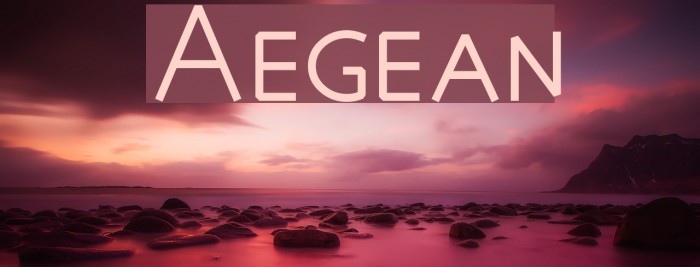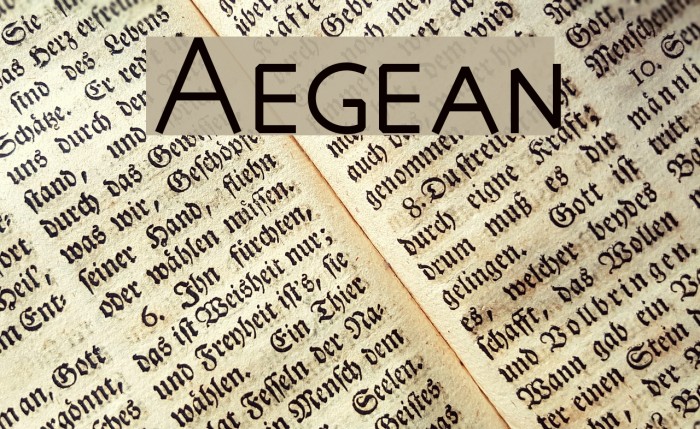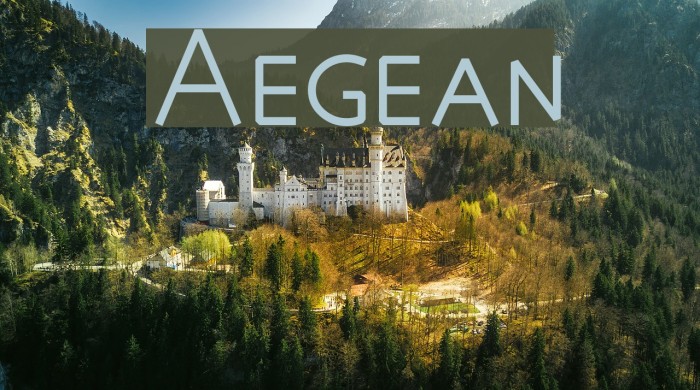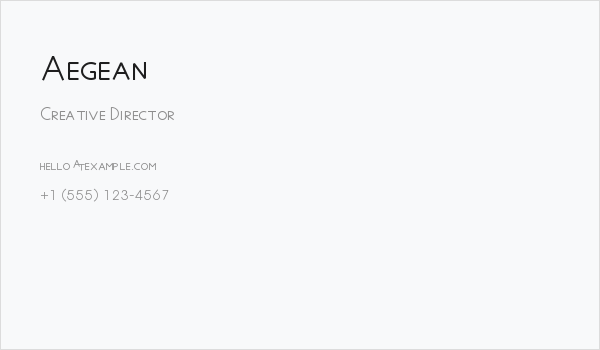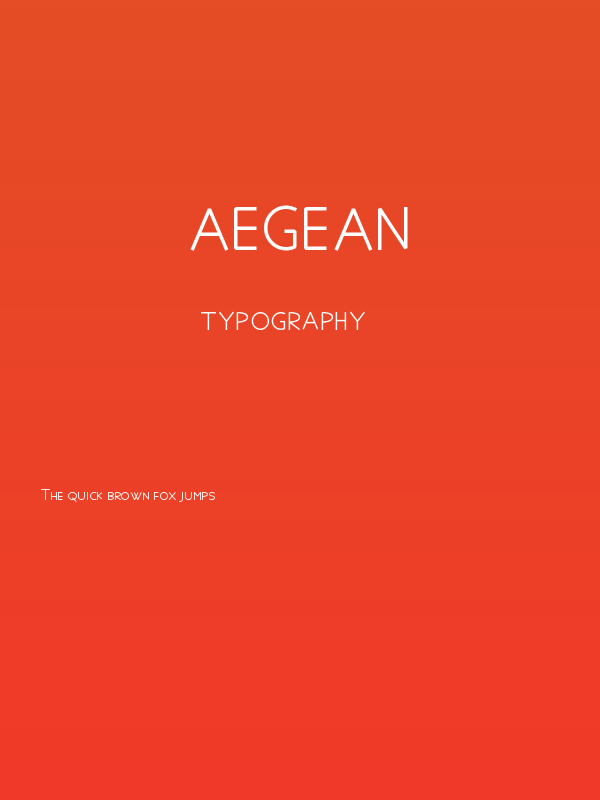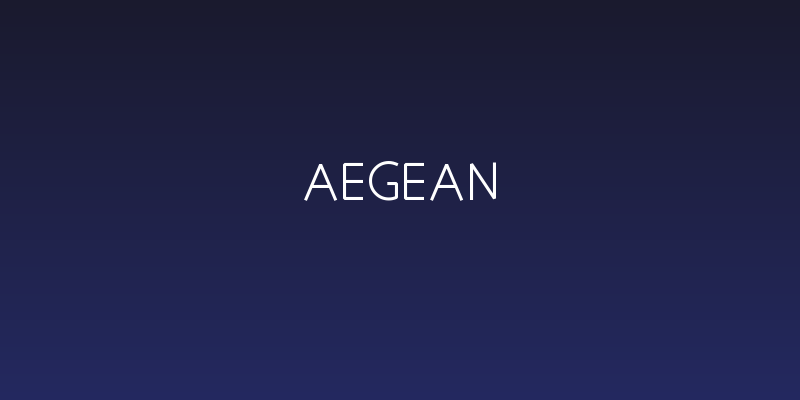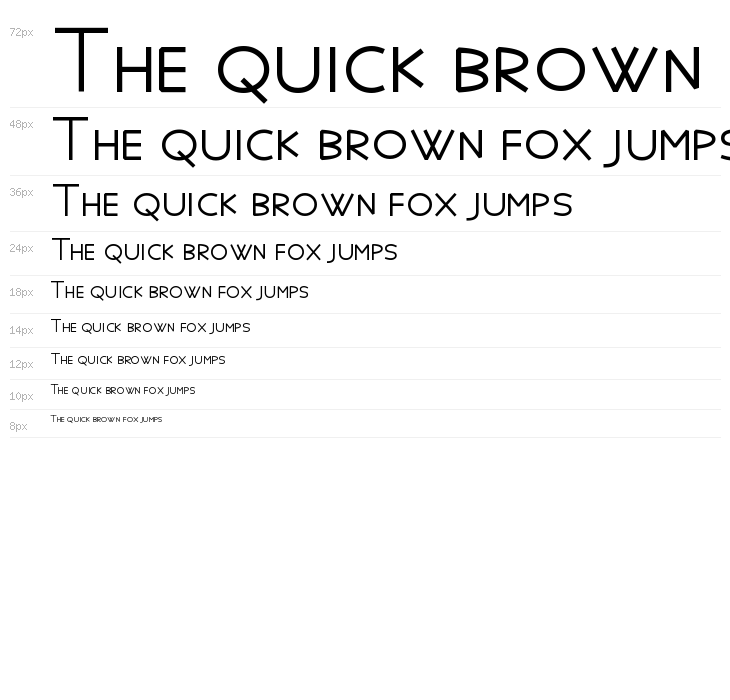
Aegean Font
Aegean Description
This font features a clean and modern sans-serif style, characterized by its geometric shapes and uniform stroke widths. The uppercase and lowercase letters maintain a consistent height, providing a balanced and harmonious appearance. The numerals are clear and easy to read, making them suitable for various applications. Special characters are well-defined, adding versatility to the font's usage. The overall design is minimalistic, with a focus on readability and simplicity, making it ideal for contemporary design projects.
| Proposed Projects | Ideal for branding, web design, advertising, and editorial layouts. |